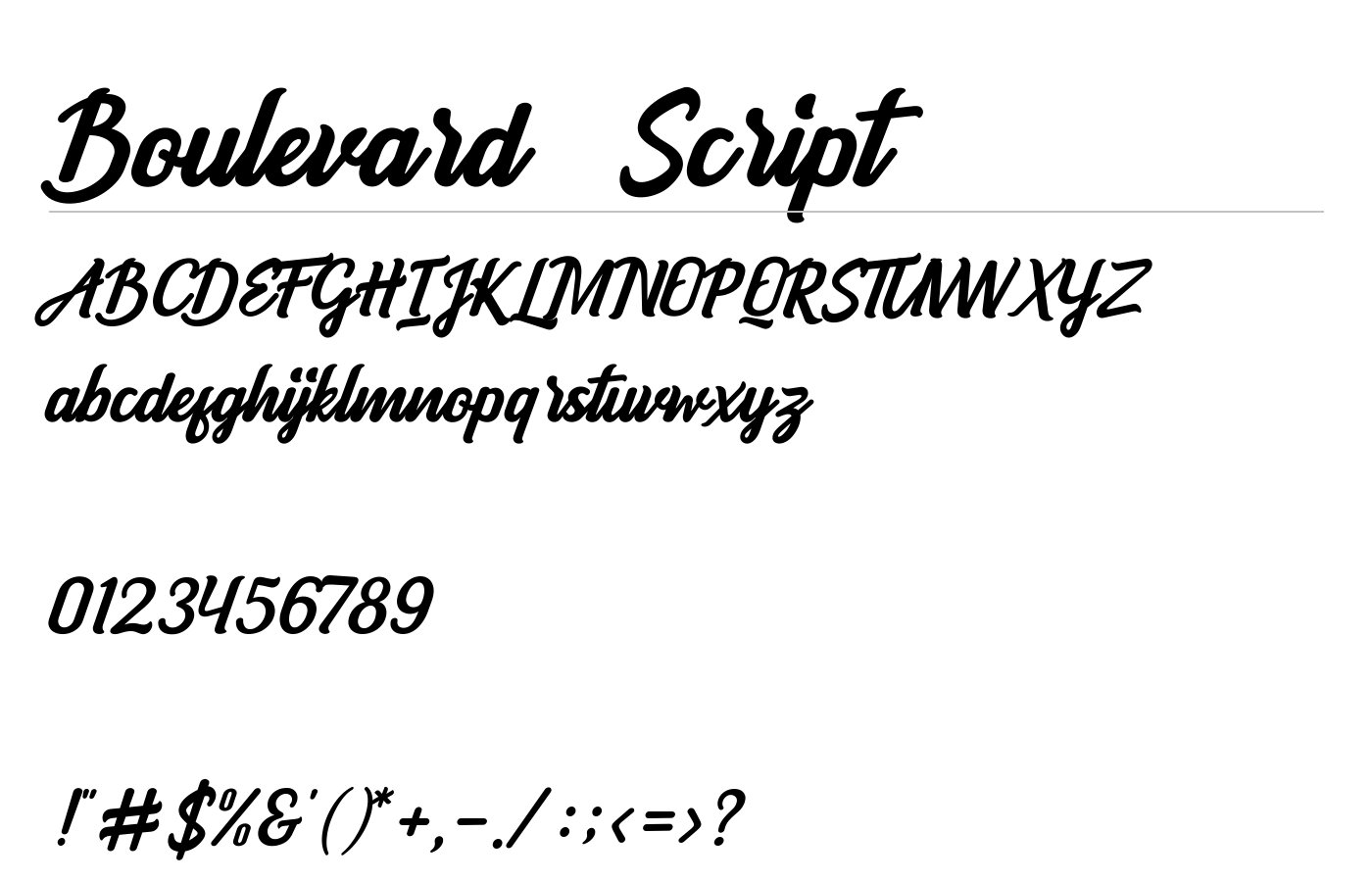
Boulevard Script is a bold and expressive script font that combines a stylish, handwritten feel with smooth, flowing letterforms. Its strong weight and lively curves make it perfect for creating eye-catching headlines, logos, and branding with a touch of vintage charm and personality. This font shines in designs that want to convey warmth, creativity, and a friendly yet sophisticated vibe.
Boulevard Script Font